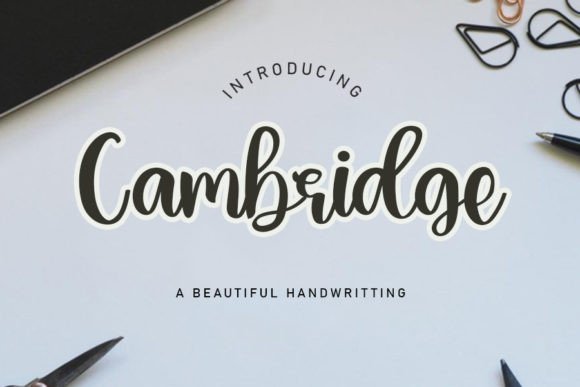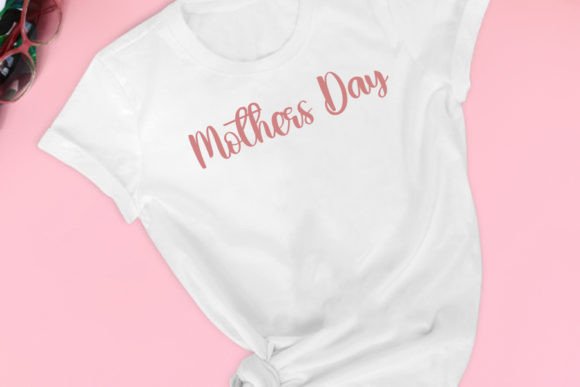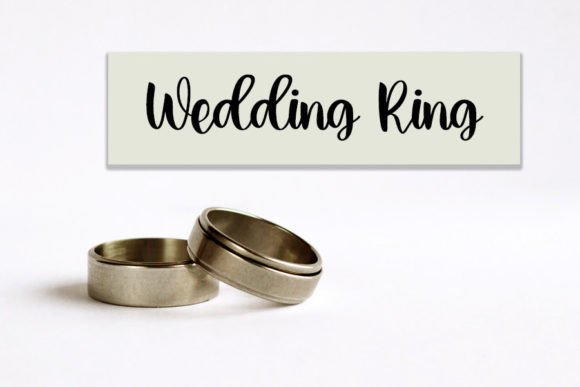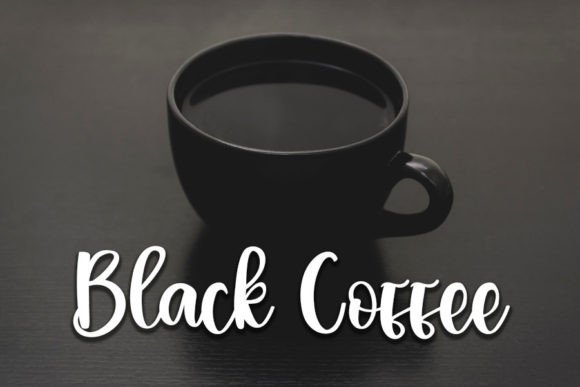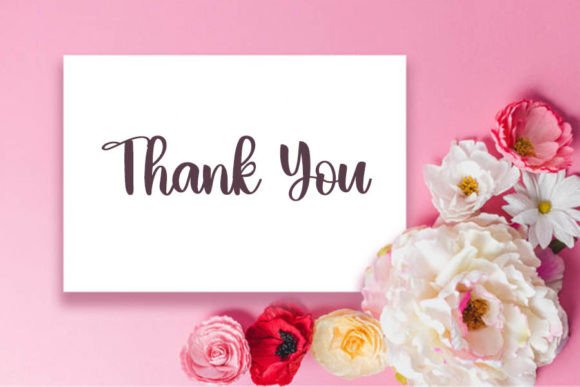
Cambridge Font
Cambridge Font: Sweet and Romantic Script for Charming Designs
“Cambridge” is a delightful handwritten script font that embodies sweetness, romance, and cuteness. Its beautiful curves and graceful letterforms add a lovely touch to various creative projects.
Key Features of Cambridge Font
• Sweet Style: Cambridge brings a romantic and endearing feel to designs.
• Beautiful Curves: Graceful letterforms enhance visual appeal.
• Versatile Use: Suitable for many projects, from wedding invitations to branding materials.
Wedding and Love-Themed Designs
Cambridge’s romantic style is ideal for creating beautiful wedding stationery and love-themed greeting cards.
Use Cambridge to design charming logo designs and branding materials that convey warmth and approachability.
Children’s Products and Lifestyle Designs
The font’s cute nature makes it perfect for children’s products and lifestyle-related designs.
Why Choose Cambridge Font?
Cambridge offers more than just beautiful letters. Here’s why it stands out:
• Conveys a sense of warmth and affection in designs
• Adds a playful and approachable touch to typography
• Enhances overall aesthetics with its graceful curves
By using Cambridge, you open up new design possibilities. Its sweet style works well in many contexts, from poster designs to book covers. The font’s ability to convey emotion can inspire creative ideas and help you approach projects from a fresh, heartwarming perspective.
If you’re looking for a font that’s both sweet and versatile, Cambridge is an excellent choice. It’s perfect for adding a romantic touch to your work, especially for projects that need a warm, inviting feel.
Explore how Cambridge can transform your designs. From branding projects to personal creations, this font brings a charming and captivating quality to your work.